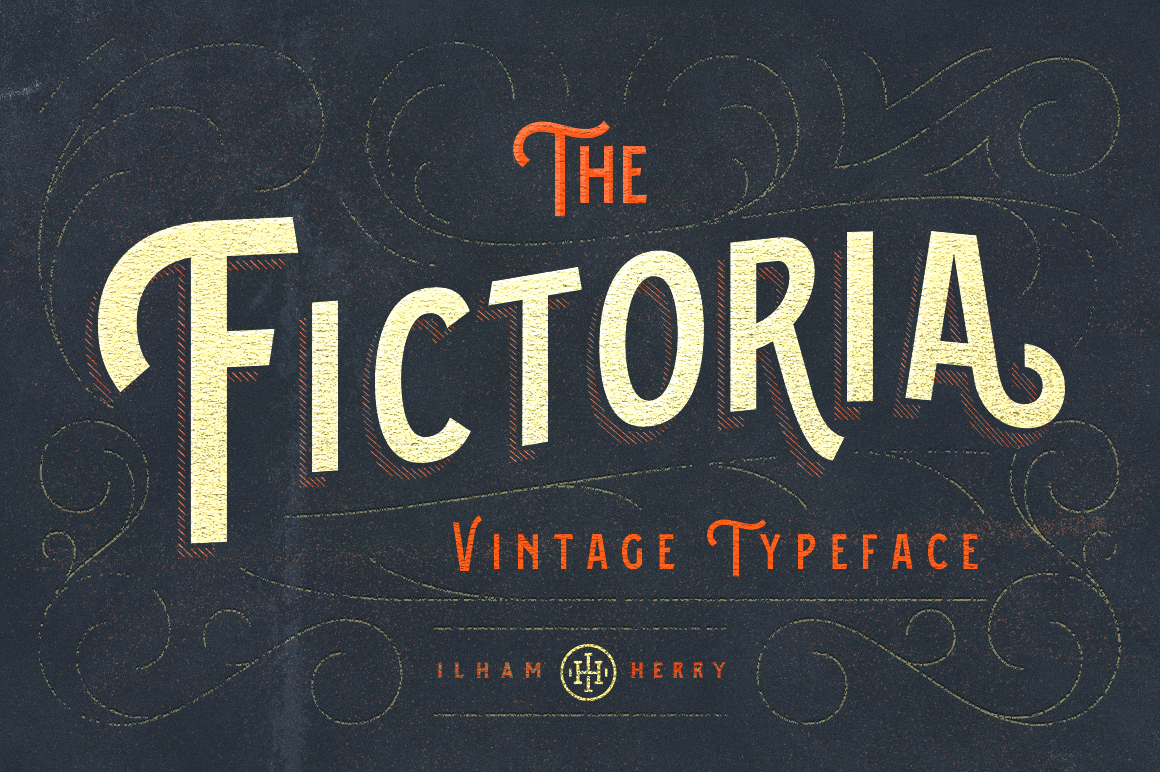
Fictoria Typeface
Introducing new vintage display typeface it's call Fictoria. Inspired by antique and vintage advertising tins package. Come with 4 style and OpenType features with Stylistic Alternates, Contextual Alternate. To access the alternat glyphs, you need a program that supports OpenType features such as Adobe Illustrator CS and Adobe Indesign. You can use this font for various purposes.such as logo, t-shirt, posters, lable, greetingcard, letterhead, book cover, and many more.